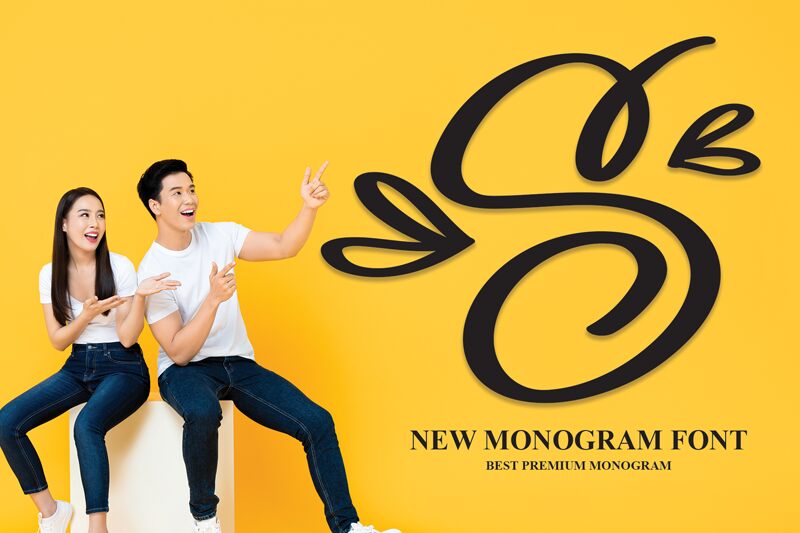
Monogram S
Meet Monogram S, a display font designed by Scratchones. With its decorative and monogram style, it adds an elegant touch to any project.
The semi-light weight of this font makes it perfect for creating sophisticated logos, wedding invitations, and personalized branding materials. Its unique design also makes it suitable for creating eye-catching headlines and stylish social media posts.
Whether you're designing for a high-end fashion brand or a luxurious event, Monogram S is sure to make your project stand out with its timeless charm.